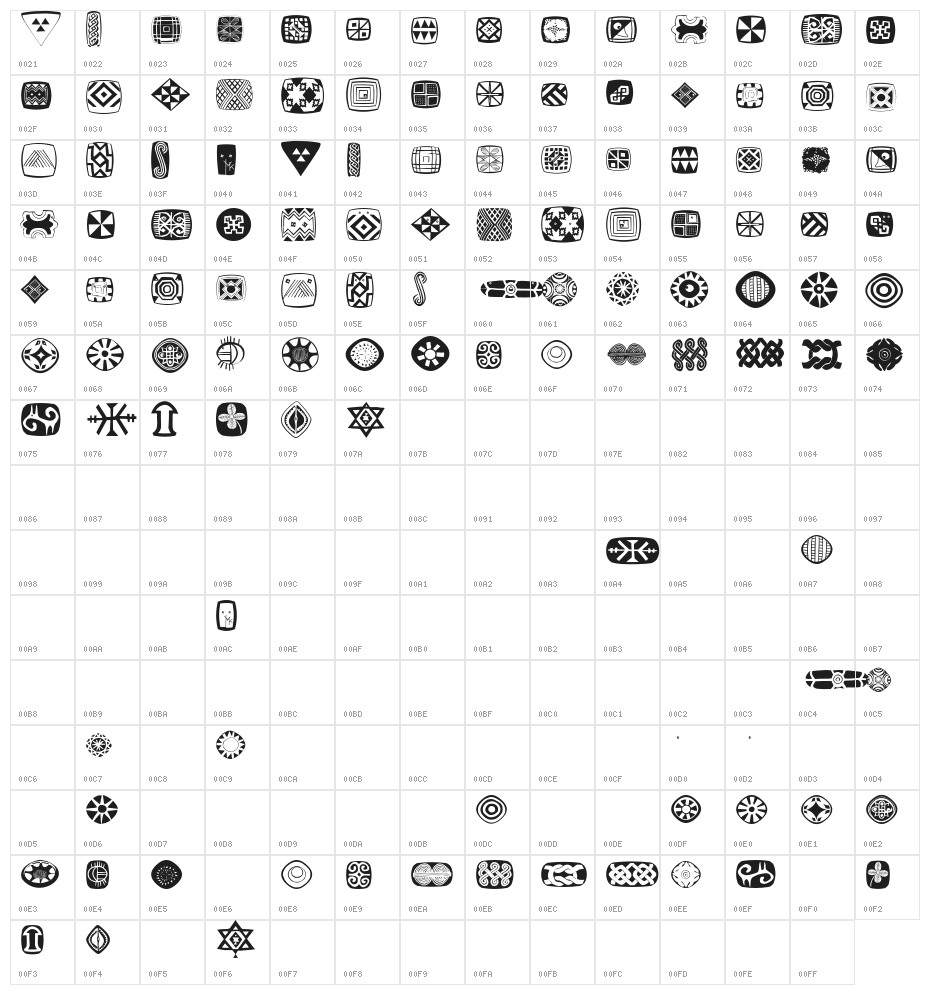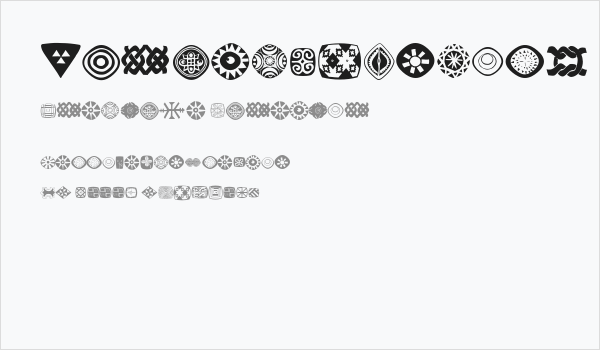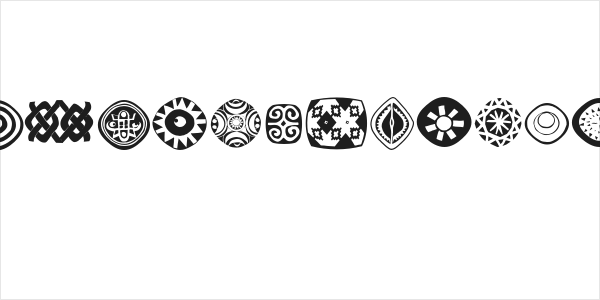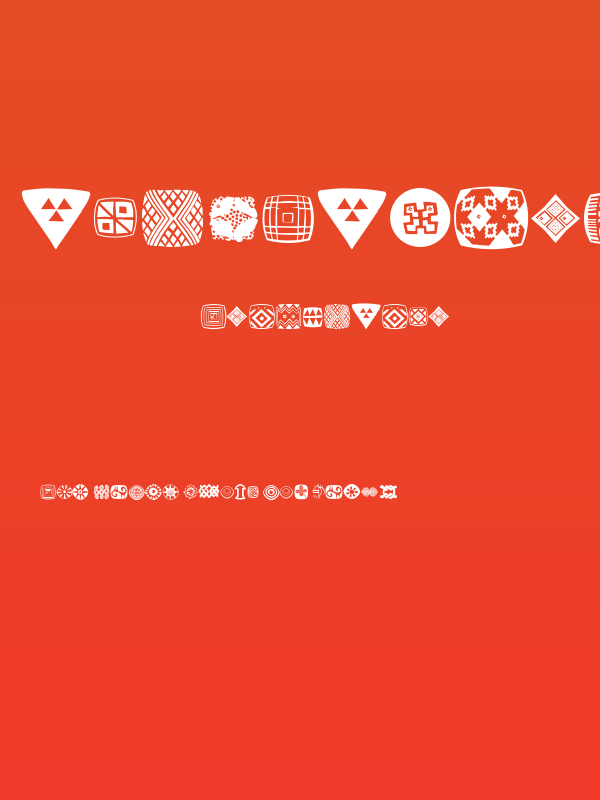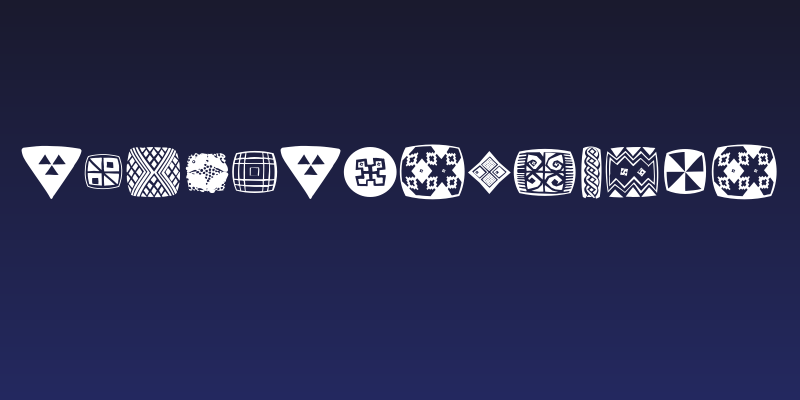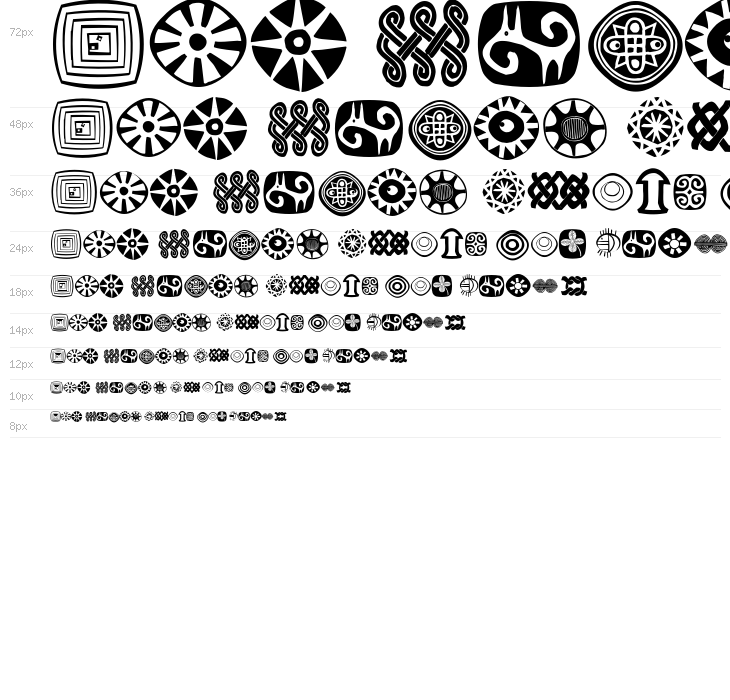
AfricanSymbols Font
AfricanSymbols Description
A collection of bold, geometric African-inspired symbols and motifs, each enclosed in a square or circular shape, featuring high-contrast black and white patterns with intricate line work and abstract forms.
| Overall Style | Decorative, Ethnic, Geometric |
| Use Case | Logos, Decorative elements, Posters, Textile design |
| Proposed Projects | Cultural branding, textile patterns, educational materials, logo design, decorative borders, art projects. |